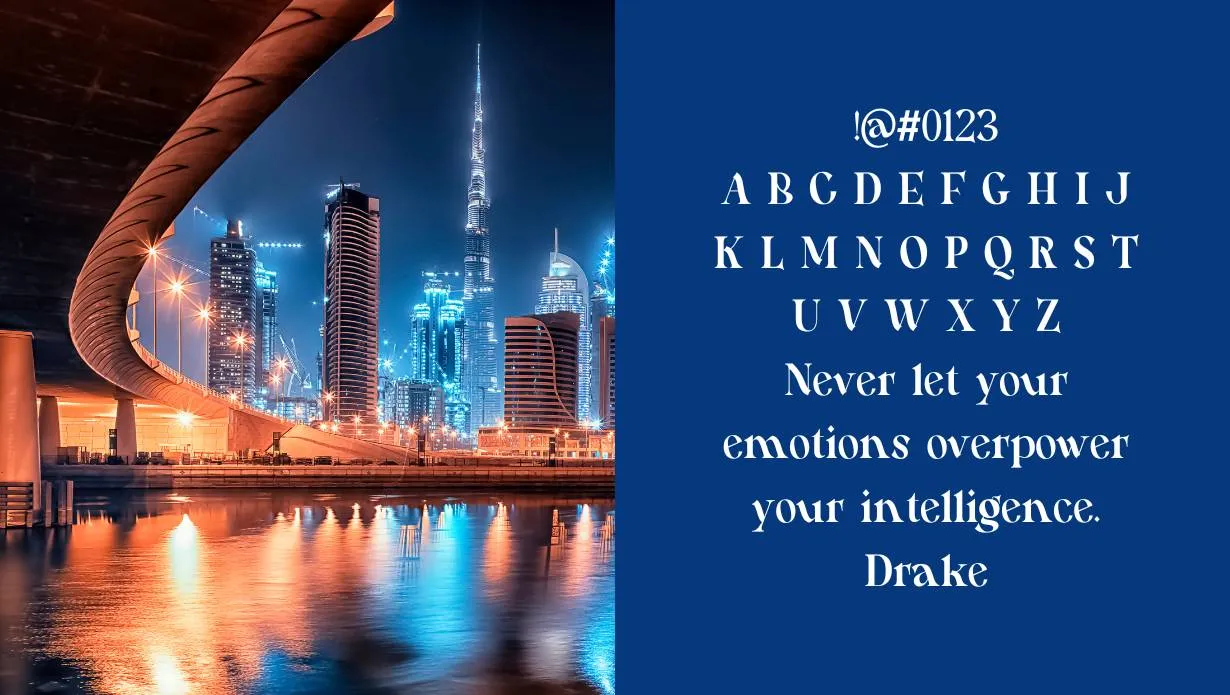
Hamachi Font is a Japanese font that was created by Hamachi Design. It was released in 2013 and is available in both regular and bold weights. The font has been designed specifically for use on web pages and in email messages and has been tested on all major browsers.
The font glyph has a unique feature that makes it more readable on small screens.